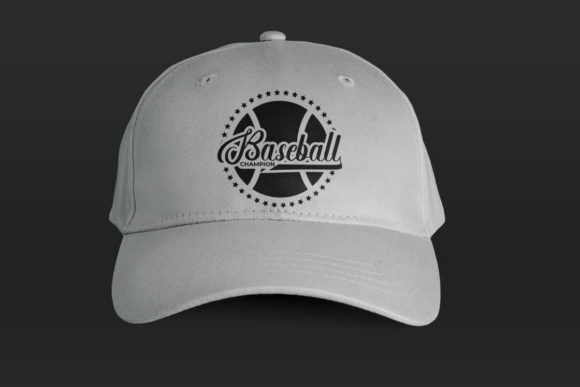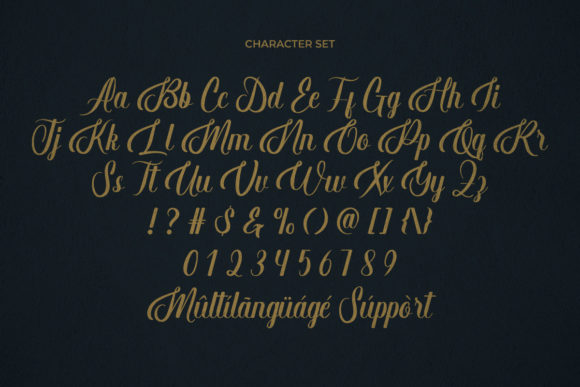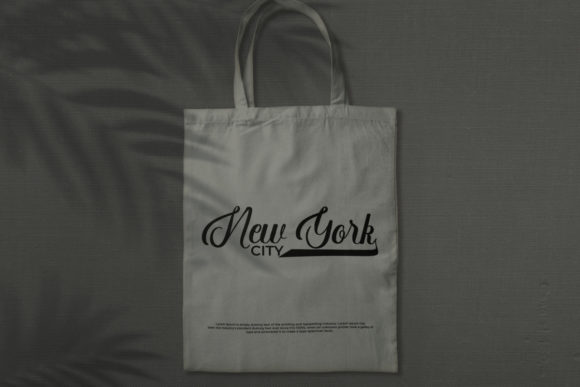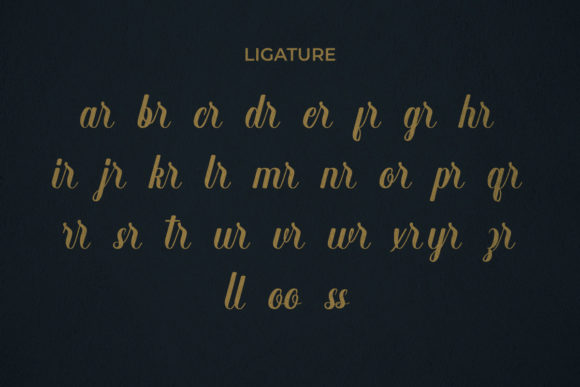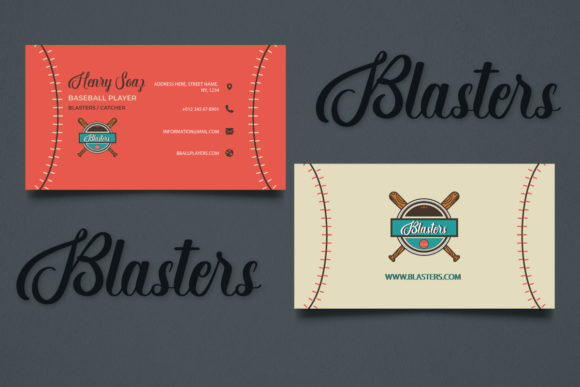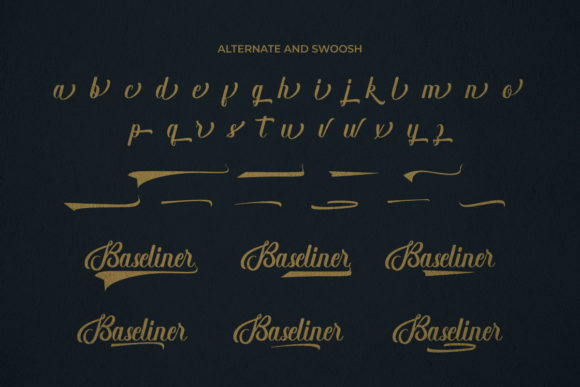
The Perfect Swing: Introducing the Baseliner Font
Remember the rush of excitement you felt when your favorite baseball team hit a home run? The thrill of the game, the crack of the bat, and the roar of the crowd – it’s a moment that stays with you forever. For designers, that same excitement can come from finding the perfect font to elevate their work. That’s where the Baseliner Font comes in, a script font that’s as natural as a handwritten signature.
Designed to capture the spirit of the baseball world, the Baseliner Font is a beautiful script style that adds a personal touch to any design project. Whether you’re working on a logo, headline, product packaging, or social media post, this brush font is the perfect addition to give your design a sporty twist. With its unique, handwritten feel, the Baseliner Font is a valuable tool for designers looking to create eye-catching and memorable designs.
Baseliner Font Key Features
- Unique Characteristics: The font features a unique, modern design with a strong baseline, making it ideal for titles, headings, and display text.
Baseliner Font Review
Overall, I think the Baseliner font is a solid choice for any project, but it’s not perfect. ✨ It has a unique, hand-drawn feel that can add a touch of personality to your designs. The font is also highly legible, even at smaller sizes, which makes it a great option for body text.
- ✨ Highly legible, even at smaller sizes
- ✨ Unique, hand-drawn feel that adds personality to designs
- ✨ Supports a wide range of languages
However, there are some limitations to consider. ⚠️ The font can be a bit too casual for formal projects, and it may not be the best choice for titles or headings. Additionally, some users have reported issues with the font’s consistency across different platforms and devices.
- ⚠️ May be too casual for formal projects
- ⚠️ Consistency issues across platforms and devices
Overall, I think the Baseliner font is a great choice for projects that require a relaxed, approachable feel. While it may not be the best option for every project, it’s definitely worth considering for designs that need a touch of personality.
Getting the Most Out of Baseliner Font
For optimal results, use Baseliner font in conjunction with a sans-serif background to create a clean and modern aesthetic. Experiment with different font sizes and styles to add emphasis and hierarchy to your design.
Baseliner font is ideal for:
– Logos and branding materials
– Digital products and interfaces
– Corporate communications and reports
Alternatives to Baseliner Font for Designers
Montserrat is a modern sans-serif font that is highly legible and versatile. It is perfect for digital designs, especially for headings and titles. When to use: For modern and clean designs, especially for digital interfaces and websites. Comparison: Montserrat is more modern and geometric than Baseliner Font, which is more traditional and elegant.
Open Sans is a clean and minimalist sans-serif font that is highly legible even at small font sizes. It is ideal for body text and is widely used in digital designs. When to use: For clean and simple designs, especially for body text and digital interfaces. Comparison: Open Sans is more minimalistic and straightforward than Baseliner Font, which has a more traditional feel.
Lato is a sans-serif font that is highly legible and versatile. It is perfect for digital designs, especially for headings and titles. When to use: For modern and elegant designs, especially for headings and titles. Comparison: Lato is more elegant and refined than Baseliner Font, which is more traditional and classic.
Merriweather is a classic serif font that is highly legible and elegant. It is perfect for print designs, especially for body text and headings. When to use: For classic and elegant designs, especially for print materials and books. Comparison: Merriweather is more traditional and classic than Baseliner Font, which is more modern and versatile.